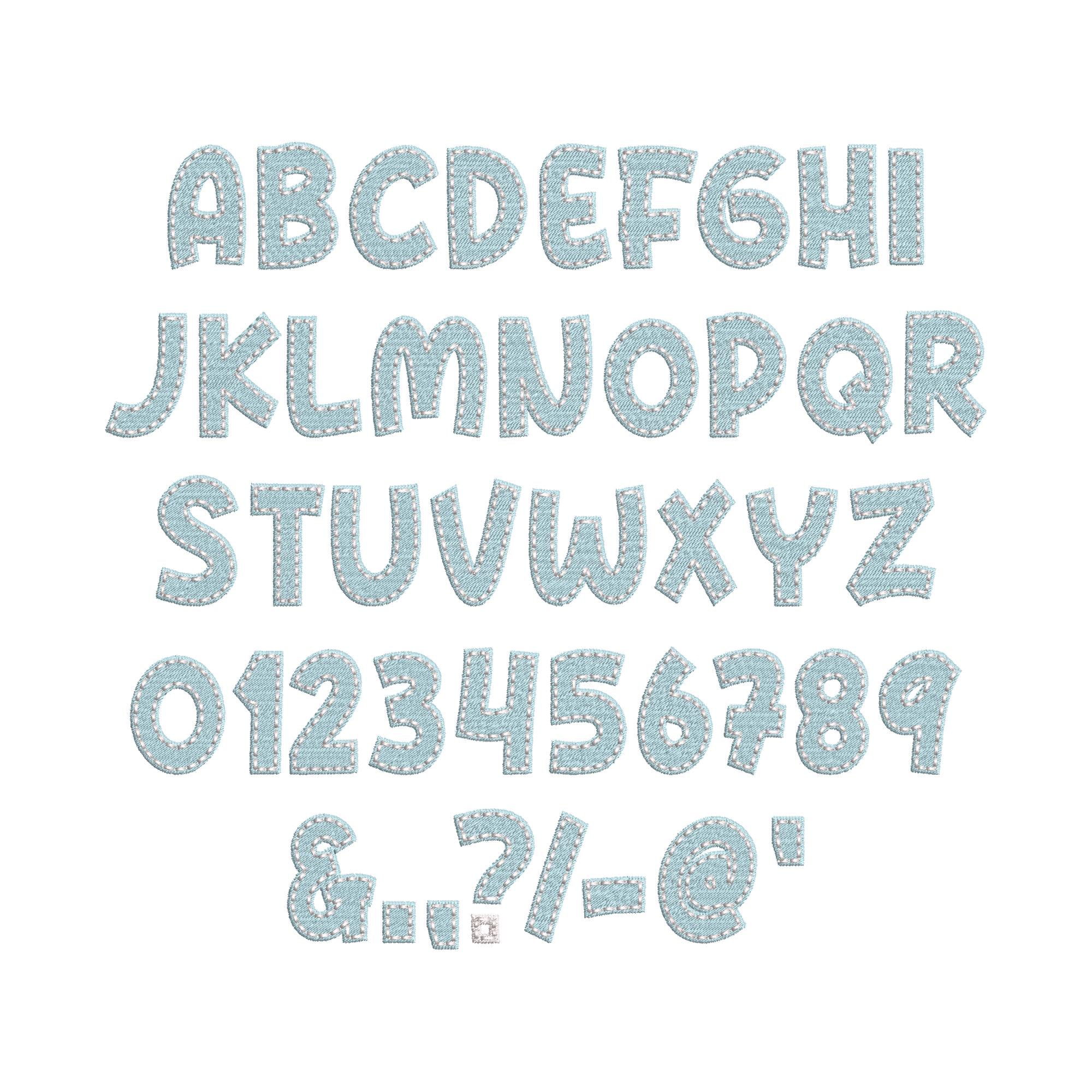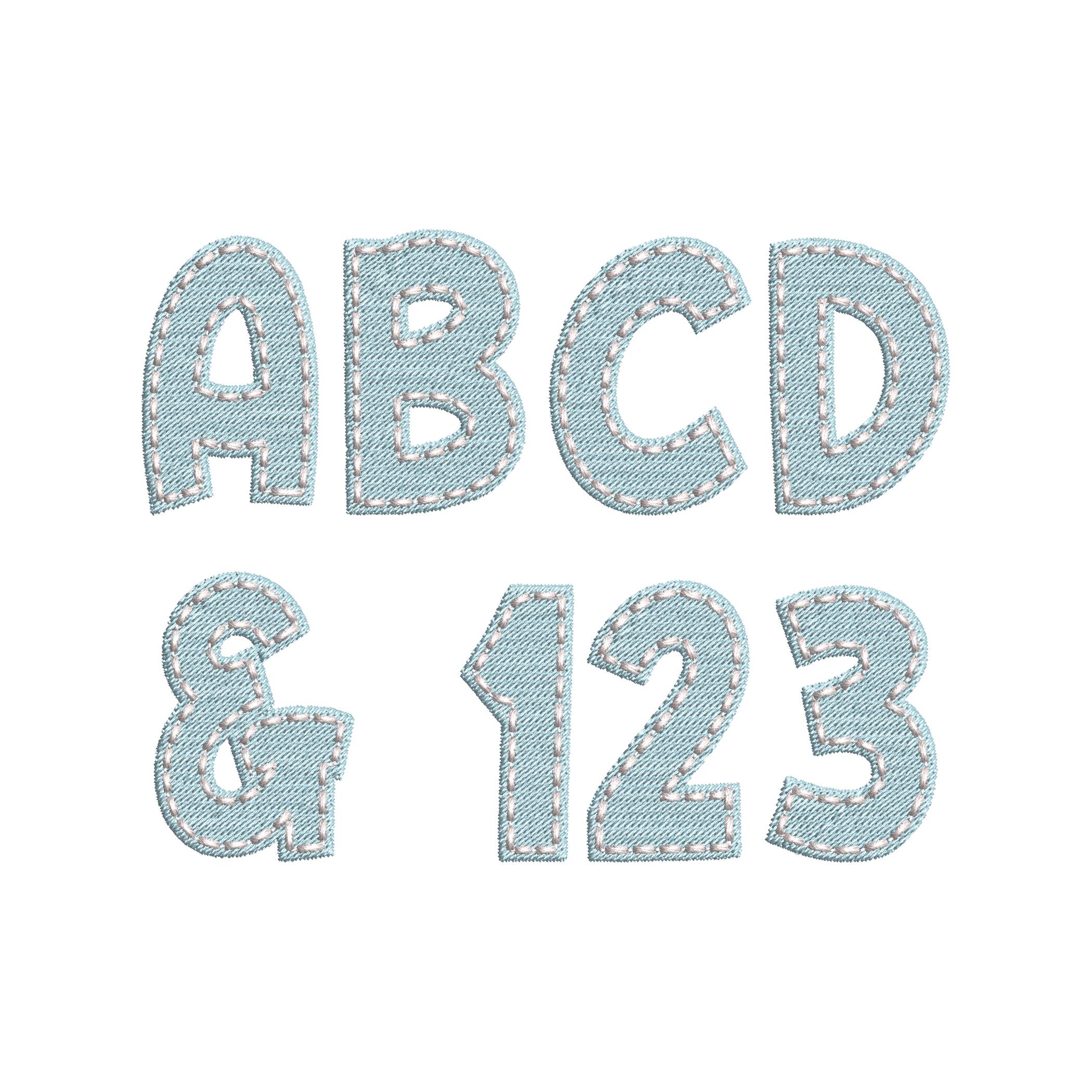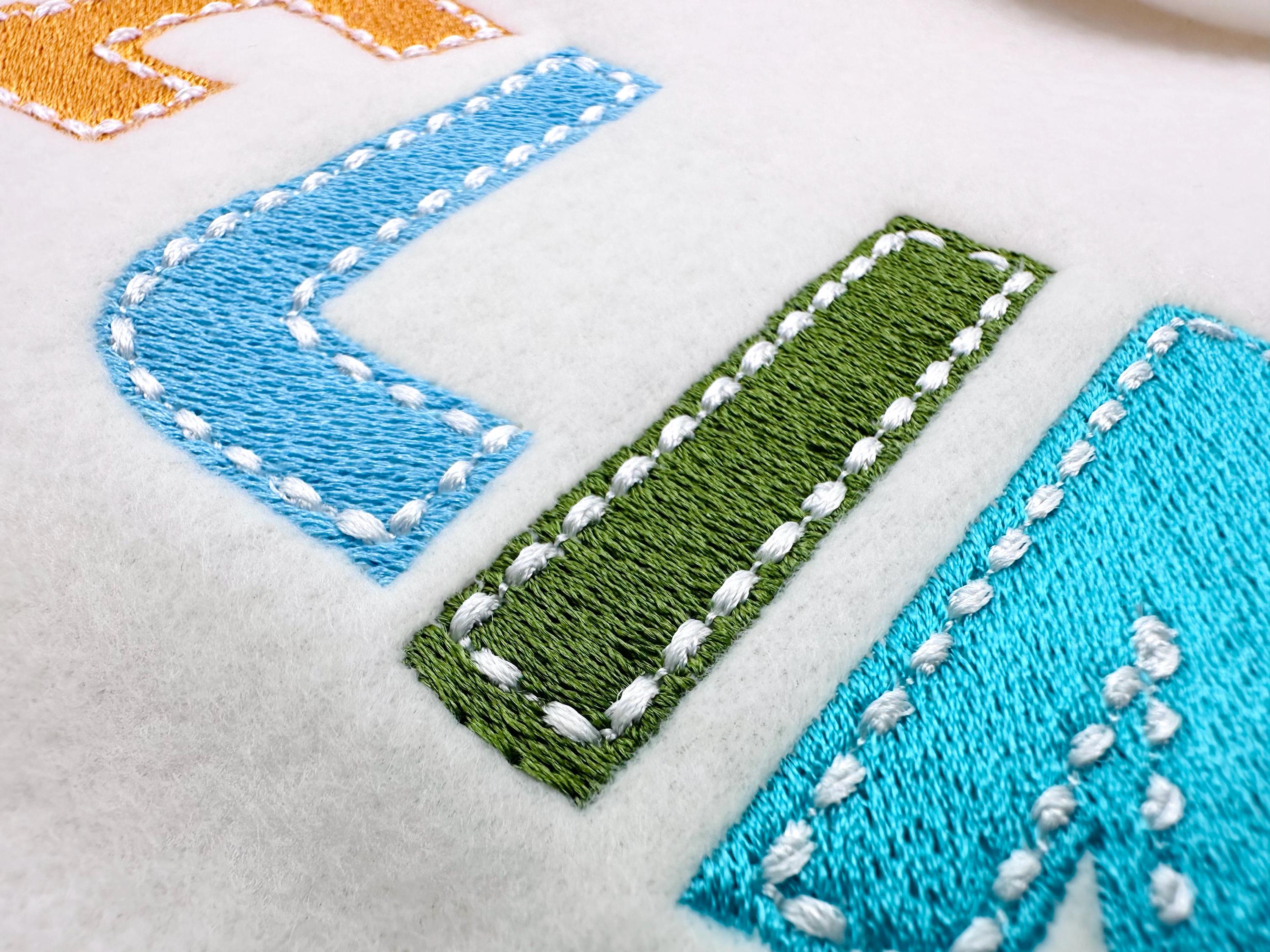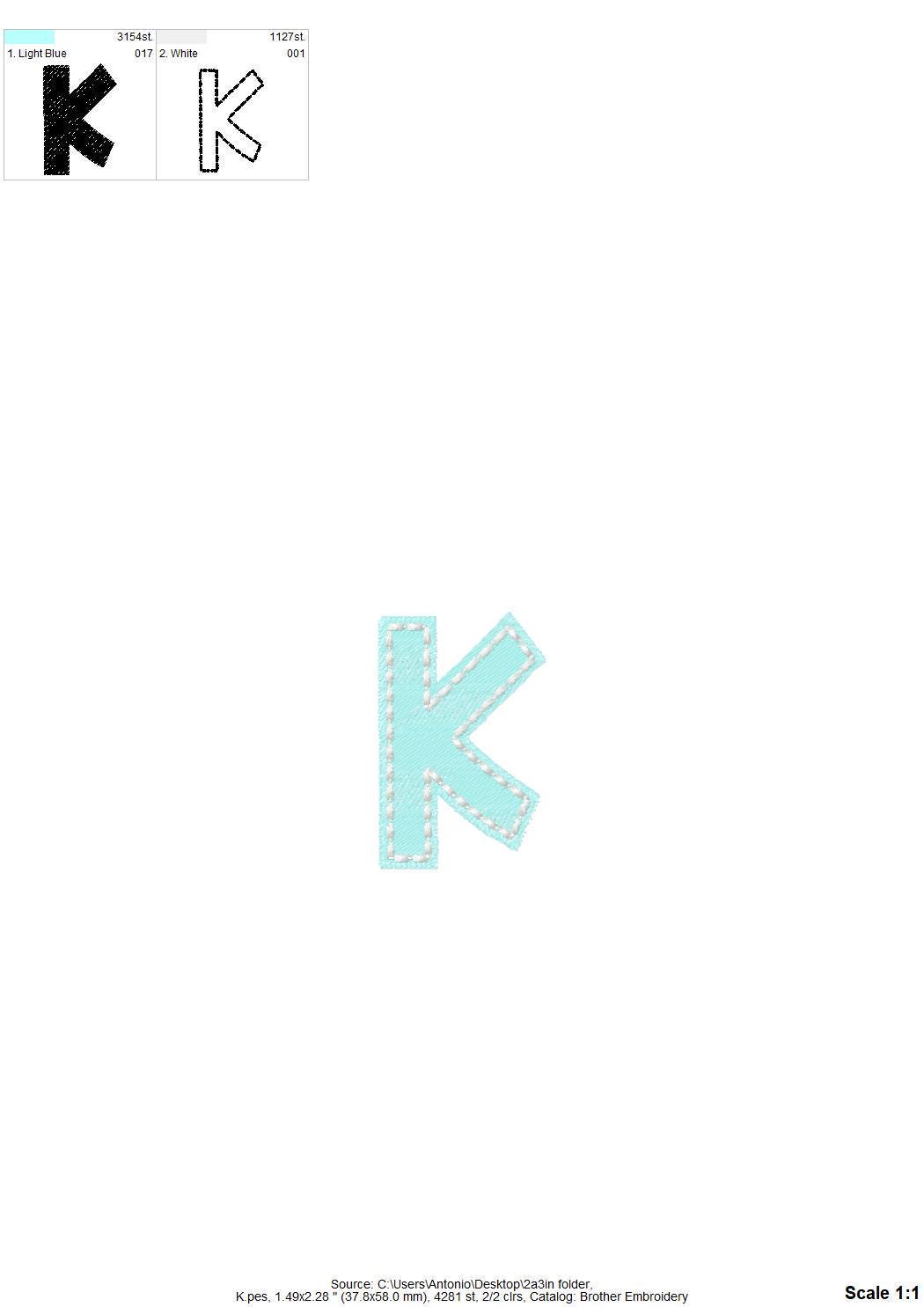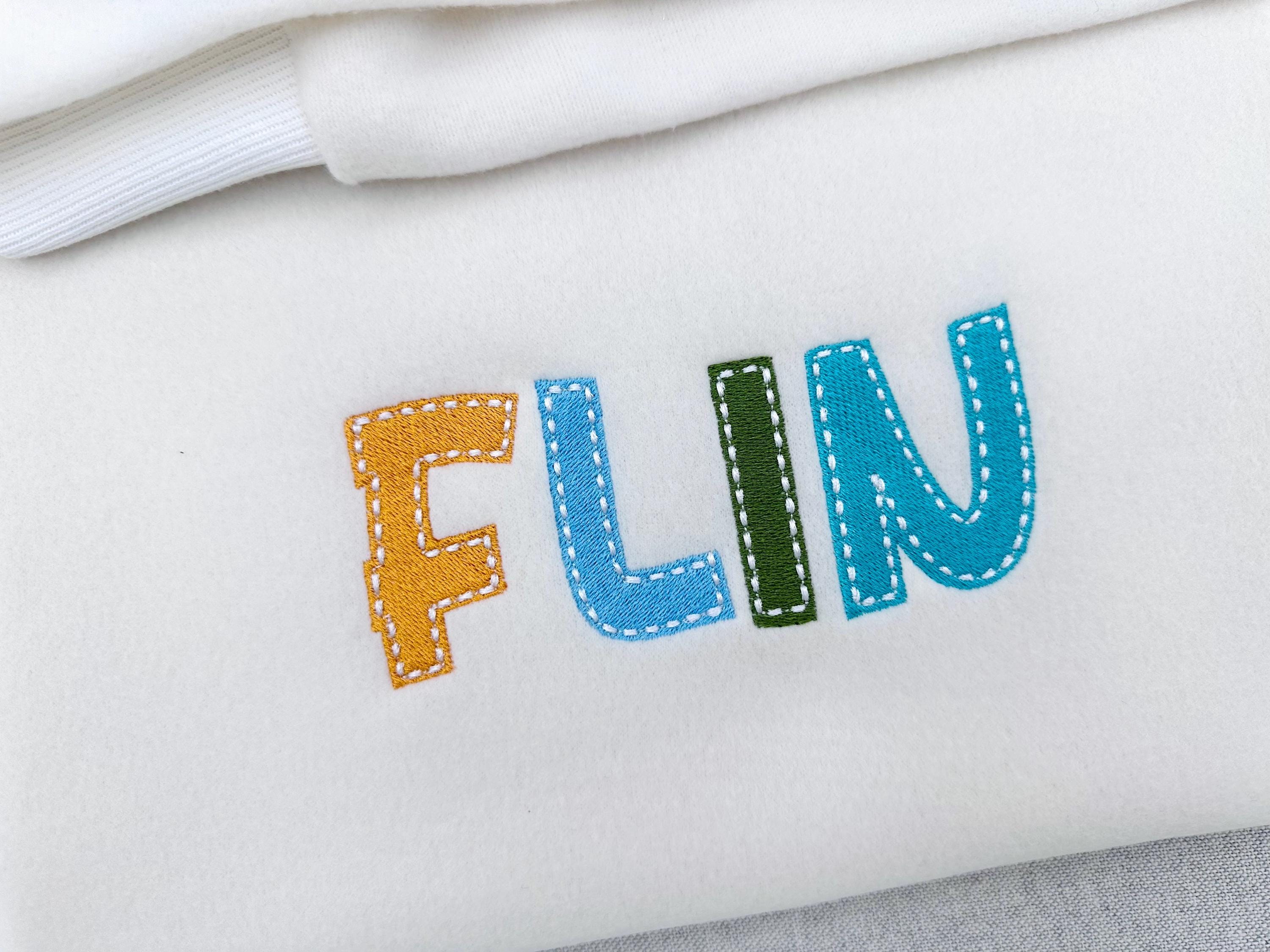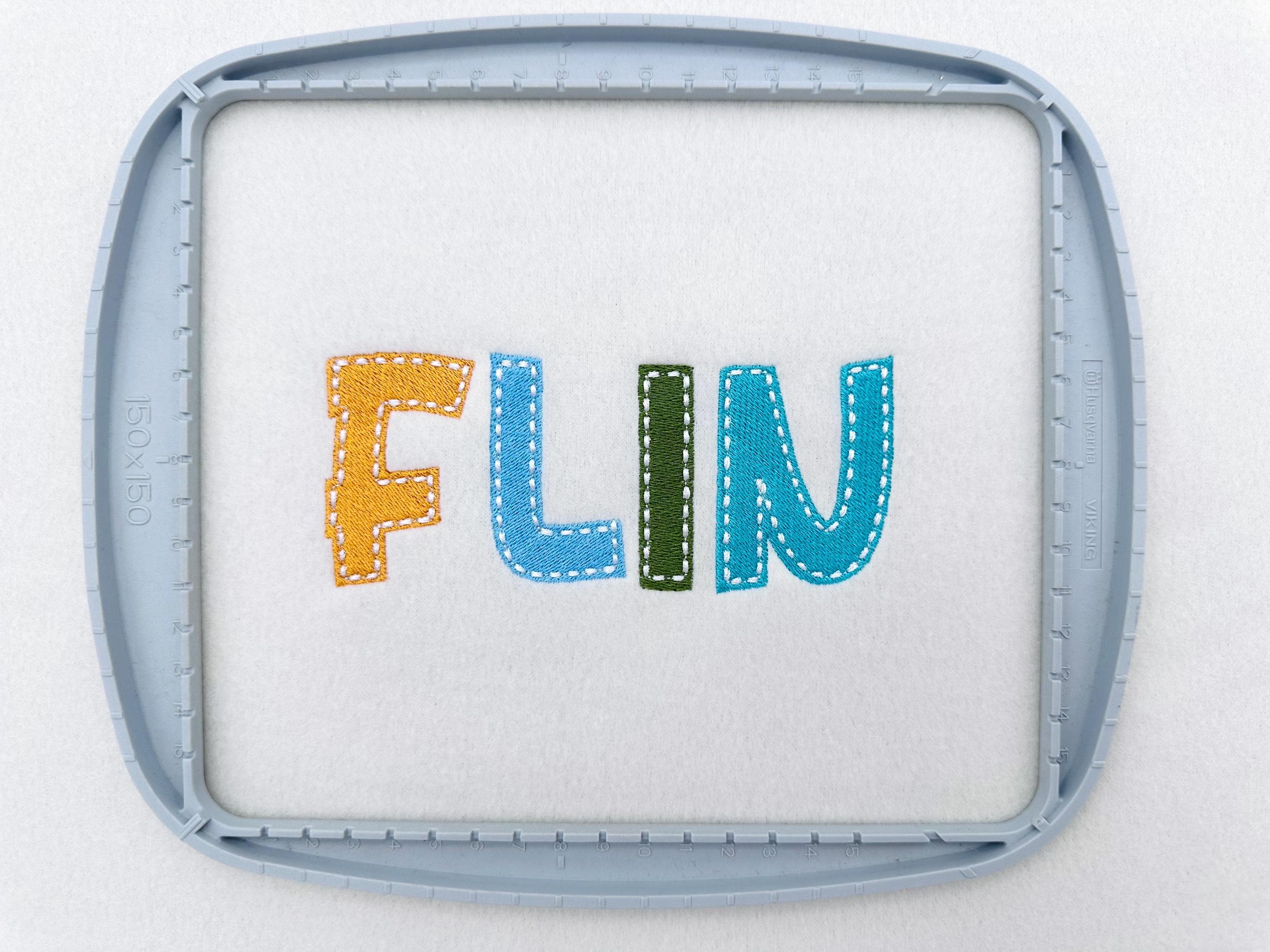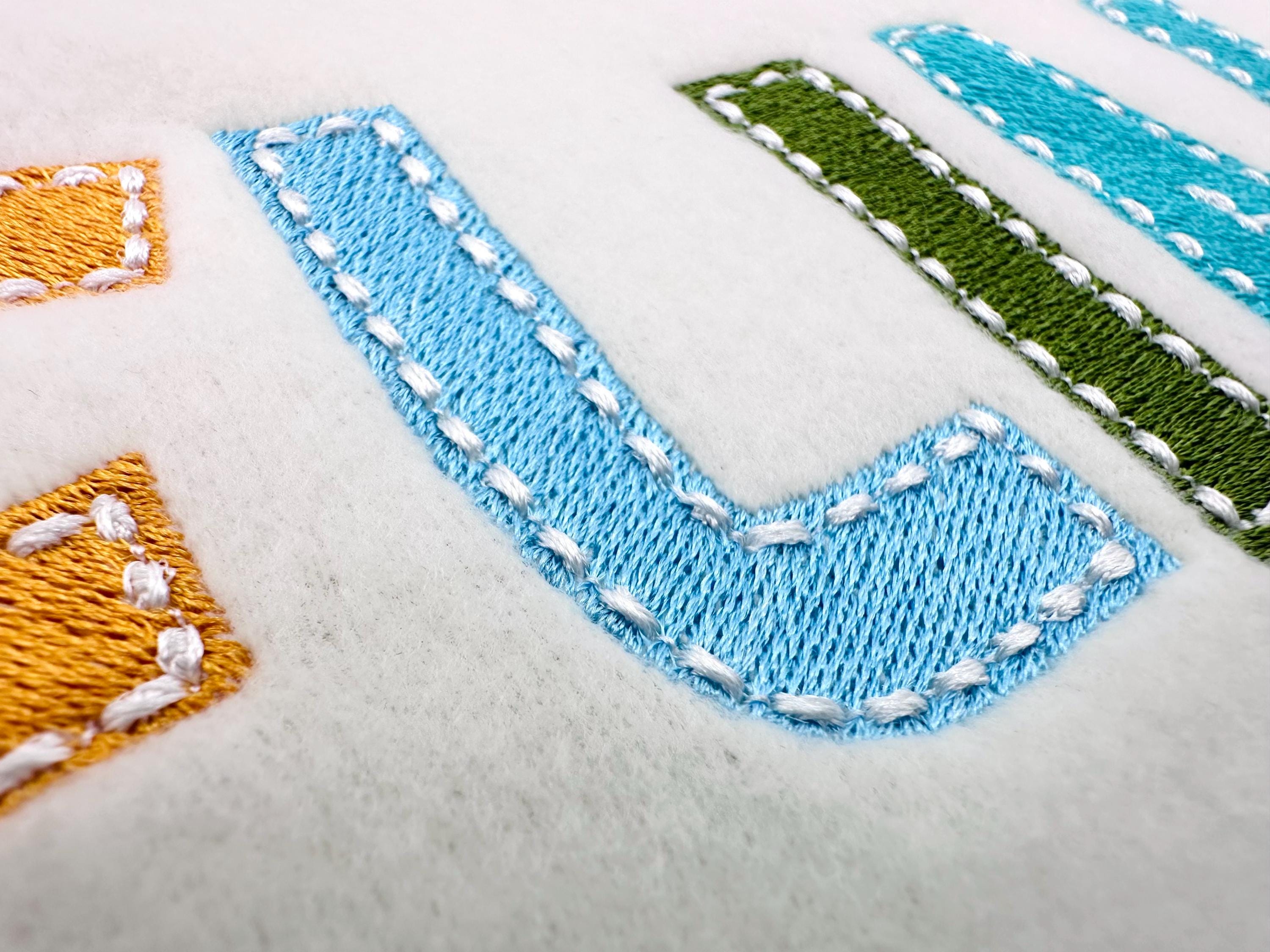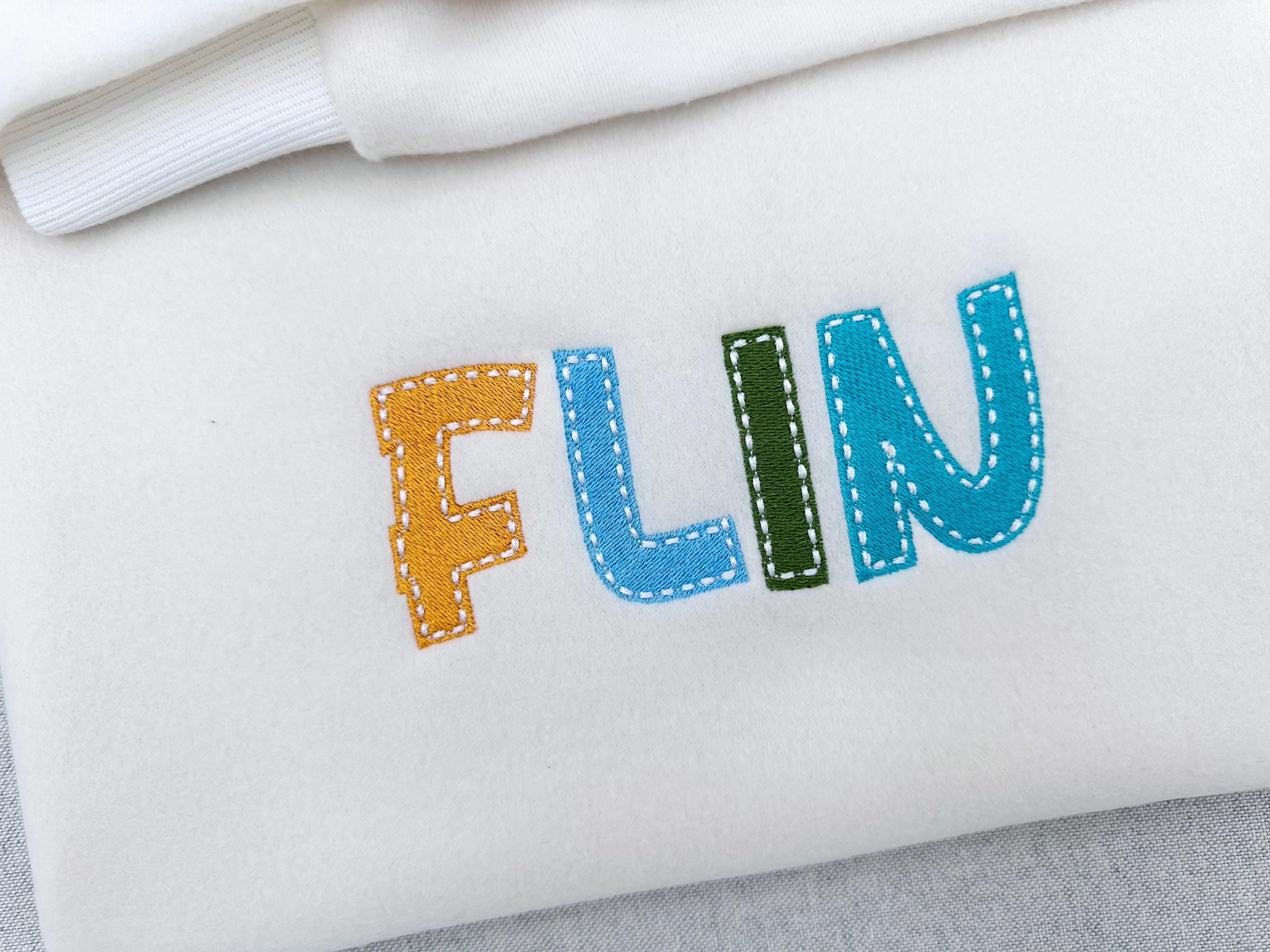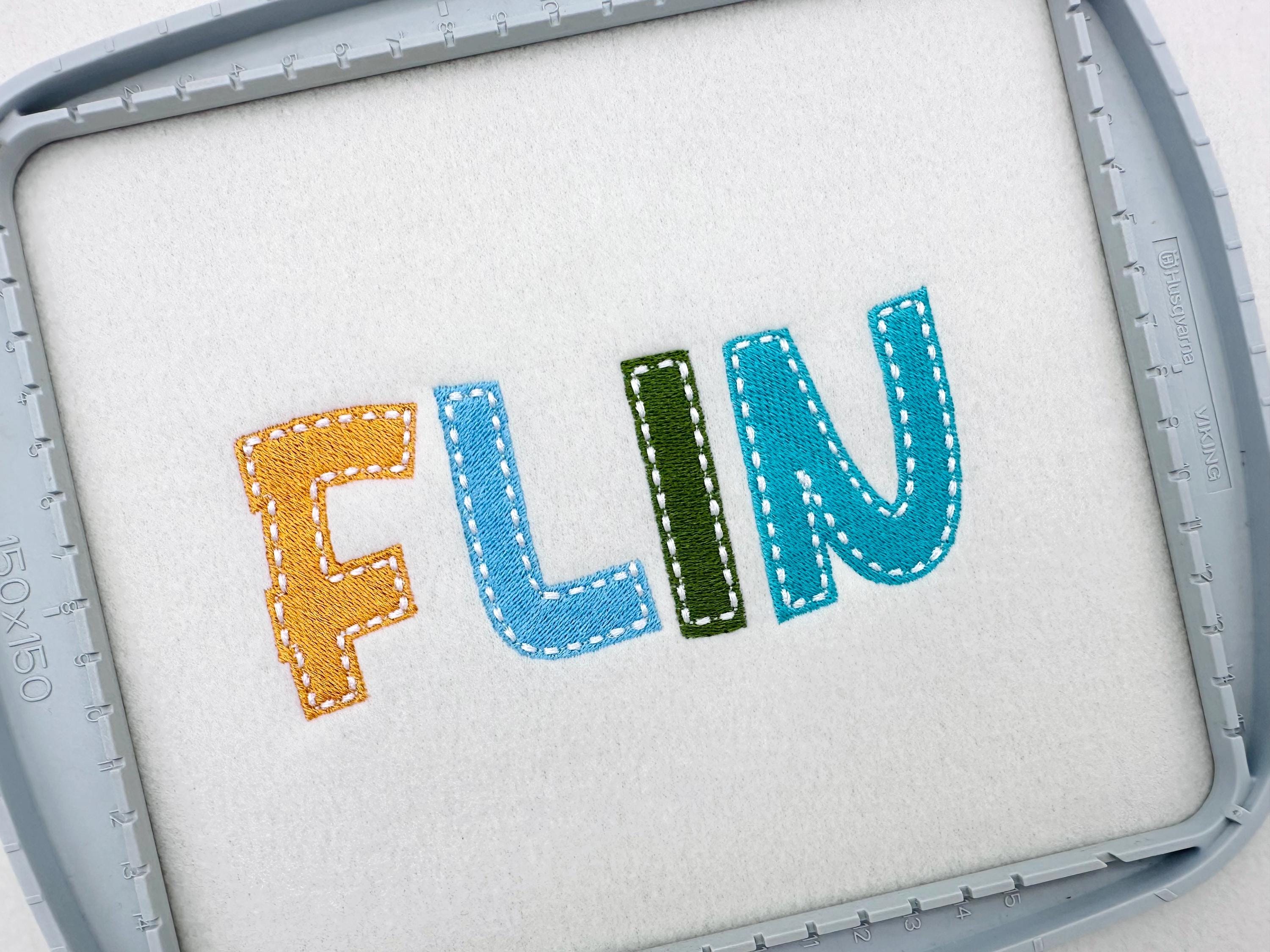
Fill Stitch FONT with hand-stitch look on top machine embroidery designs kids boys Bold Alphabet Monogram sizes 1.2 up to 2.8 inch, BX
Entire alphabet uppercase letters A-Z, numbers 0-9, and punctuation.